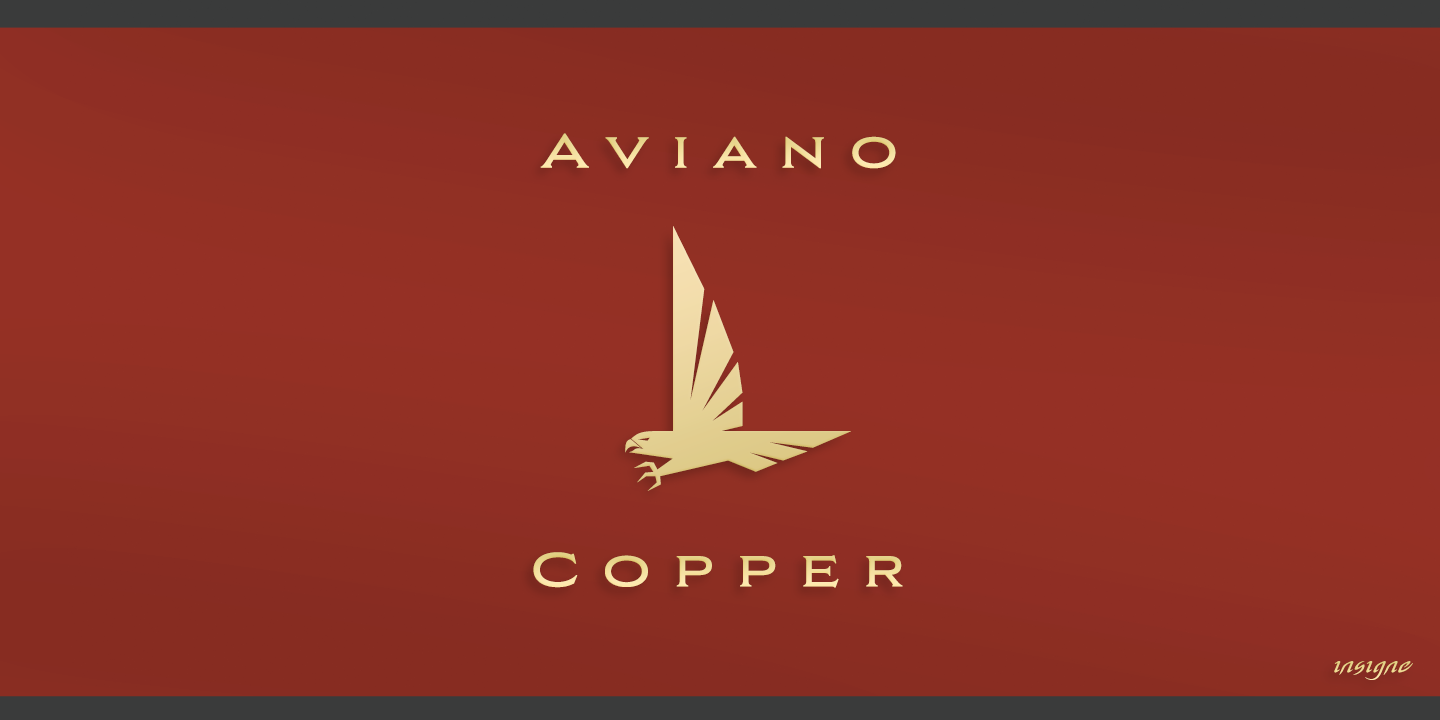
Aviano Copper Font is perfect for luxury engraving services, premium metalwork branding, high-end jewelry packaging, artisan craft workshops, vintage copper signage, elegant memorial plaques, sophisticated trophy designs, upscale steampunk aesthetics, premium distillery labels, classical monument inscriptions, and any project that requires refined metallic character with timeless engraved sophistication.
What makes Aviano Copper Font exciting is its exquisite recreation of traditional copper engraving artistry through meticulously crafted letterforms that capture the warmth and elegance of hand-engraved metal typography with contemporary precision. This distinguished typeface features classical proportions with metallic refinement that convey luxury craftsmanship and timeless quality. The font's copper character adds instant premium credibility and artisanal appeal to any design, making it perfect for brands celebrating traditional metalworking excellence and luxury engraving heritage.
Aviano Copper Font comes in multiple font families including Regular, Bold, Light, Condensed, Engraved, and Metallic variations, offering designers comprehensive options to create luxury compositions and achieve the perfect engraved aesthetic for premium-focused design projects.
Whether you're developing luxury craft branding, creating premium metalwork materials, or designing elegant engraving campaigns, Aviano Copper Font Free Download provides the ideal solution for projects demanding authentic metallic character and engraving sophistication. This refined typeface excels in display applications where luxury presence is essential, ensuring your designs communicate artisanal excellence and premium craftsmanship values. The elegant character and copper styling of Aviano Copper Font make it an indispensable tool for designers who prioritize luxury engraving, metalwork artistry, and premium craft traditions in their typographic selections.